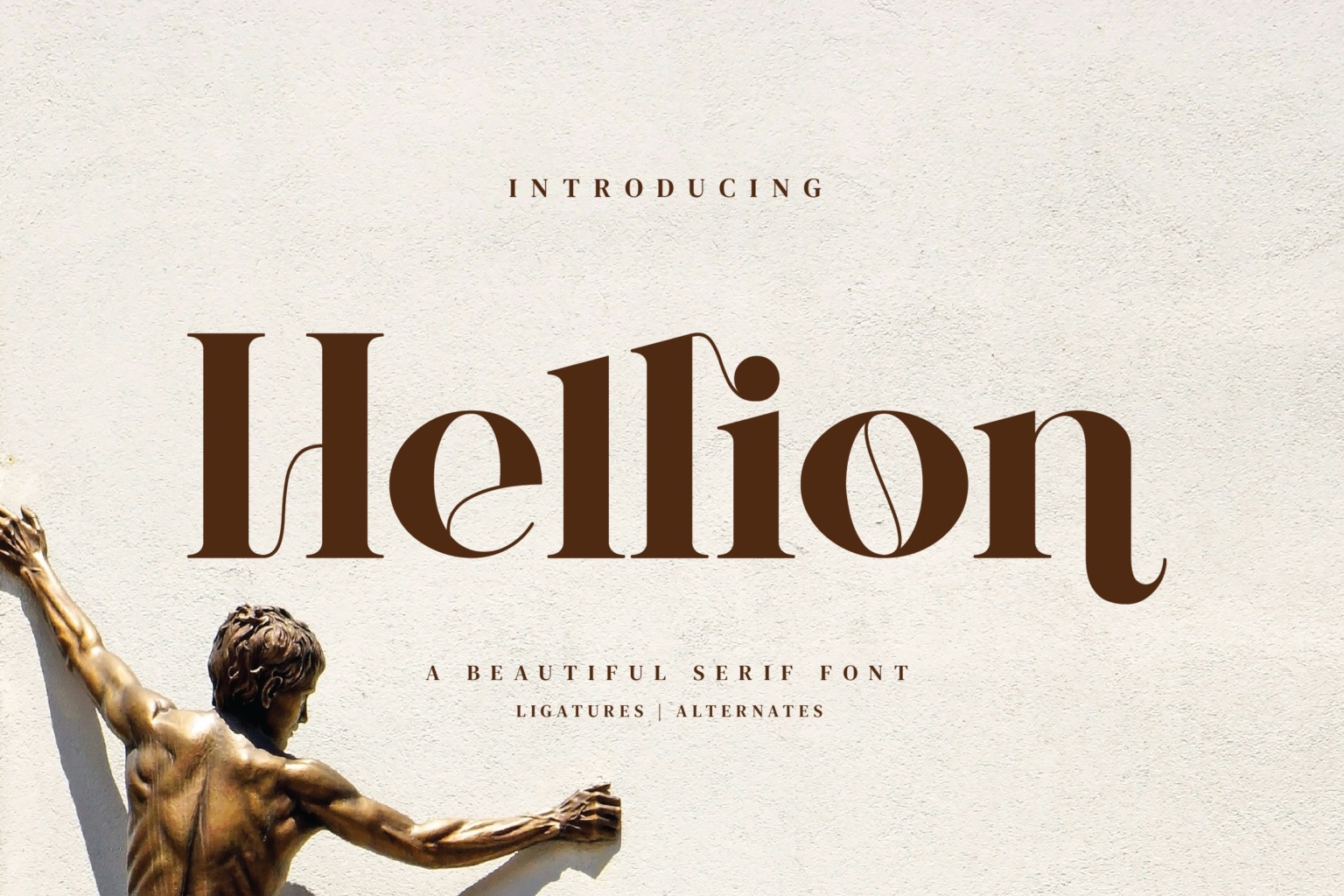
Hellion – Modern Serif Font
Hellion – Modern Serif Font brings a balanced structure and contemporary look, making it suitable for both digital and print design. Hellion Stylish Ligature Typeface, inspired by the famous minimalist logo perfect for the purposes of designing templates, brochures, videos, advertising branding, logos and more.